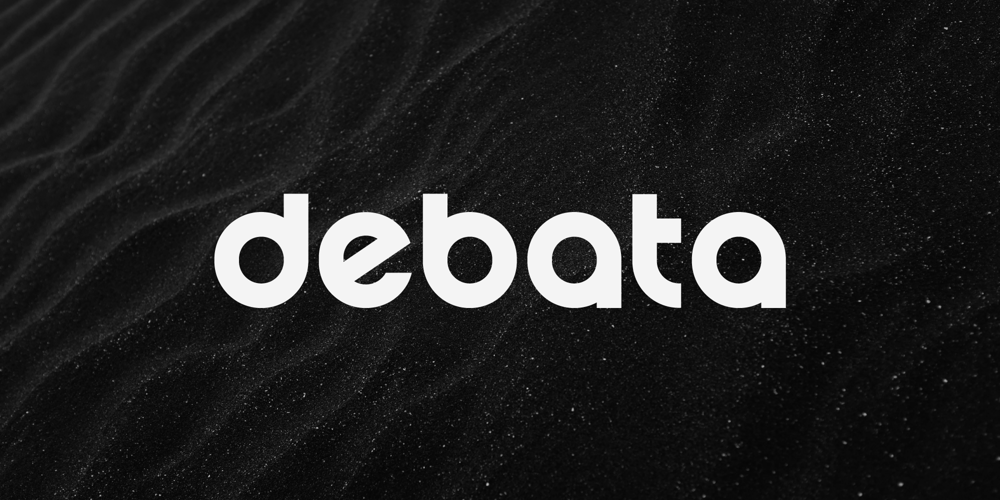
Debata Font Family was designed by Iwan Alwan and published by Artiveko. Debata contains 2 styles and family package options. Debata is a contemporary sans serif font designed by Iwan Alwan, showcasing unique forms and versatile character variations in both uppercase and lowercase.This modern typeface supports multiple languages, making it an excellent choice for global projects. Its clean, distinctive design ensures readability while adding a touch of sophistication to any text.Perfect for branding, web design, and print materials, Debata stands out with its elegant simplicity and adaptability.